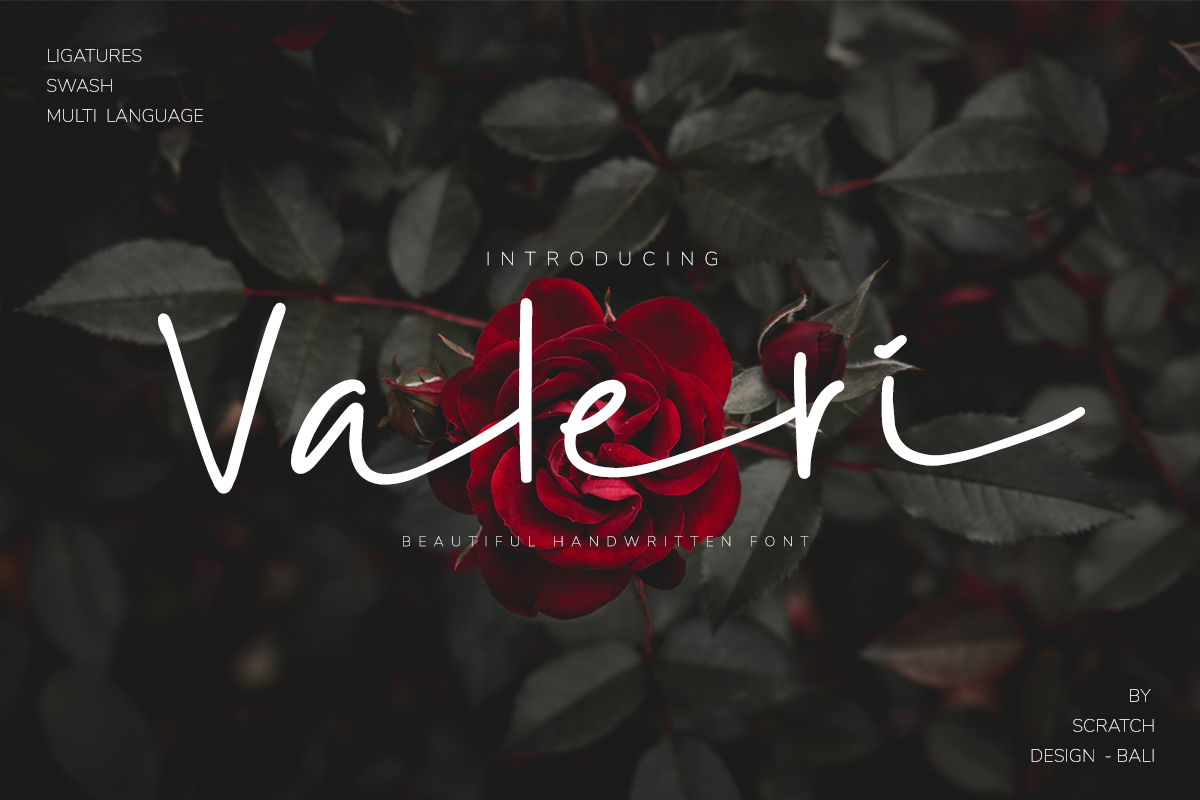
Valeri
Introducing our new font " Valeri"Valeri is a gorgeous  hand brushed  font and a modern script type that makes for stunning logos, quotes, wedding invites, blog posts, Instagram, signatures, poster, postcard, and more!This font includes ligatures and swashes to make everything look perfectly natural and handwritten and more signature look. Valeri font that just goes so well with the script very smooth and with a very dynamic modern look.Includes:
• Numbers + Punctuation
• International language support